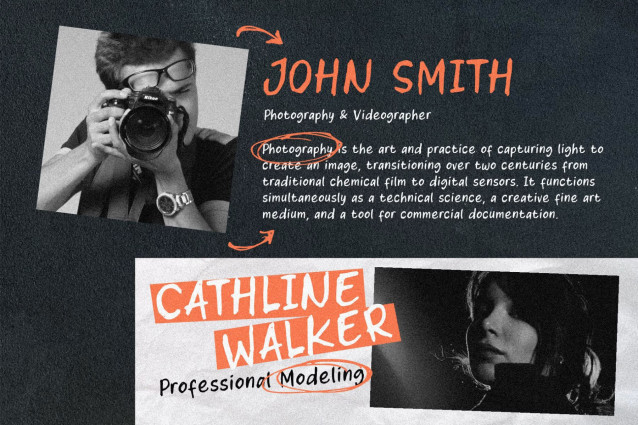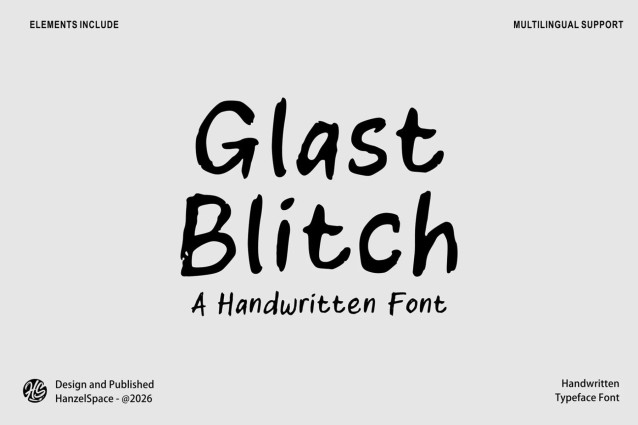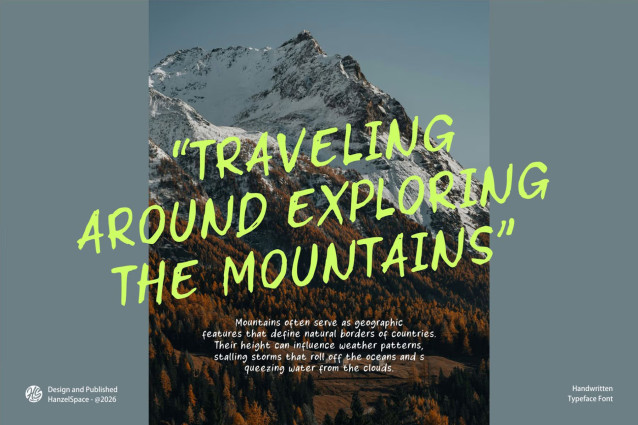
Glast Blitch Handwritten Font
Introducing Glast Blitch Handwritten Font This font is created using authentic handwriting or hand-drawn script on paper and written in a rough style with an ink pen, giving the resulting font an organic character. This font can be used in your design projects, such as packaging, magazines, brands, quotes and others.
Glast Blitch Handwritten Font
Introducing Glast Blitch Handwritten Font This font is created using authentic handwriting or hand-drawn script on paper and written in a rough style with an ink pen, giving the resulting font an organic character. This font can be used in your design projects, such as packaging, magazines, brands, quotes and others.
– Full Set of standard alphabet and punctuation
– Multilingual Characters (ÁÂÄÀÅÃÆÇÐÉÊËÈÍÎÏÌÑÓÔÖÒØÕÚÛÜÙẂŴẄẀÝŶŸỲ áâäàåãæçðéêëèíîïìñóôöòøõœúûüùẃŵẅẁýŷÿỳ€£¥)